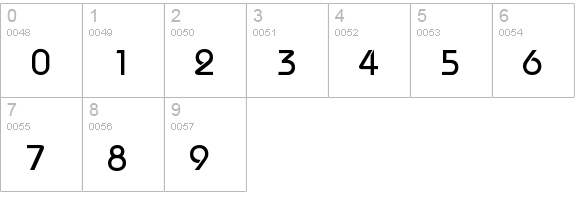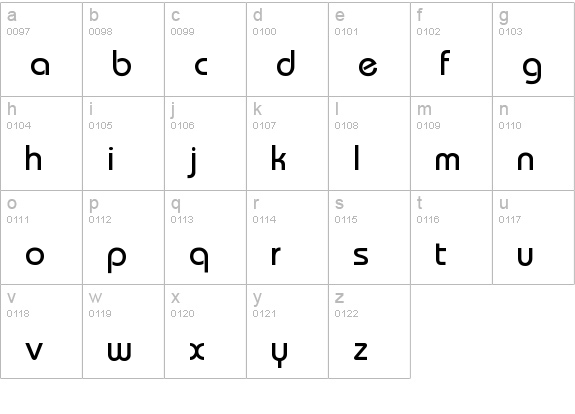
QTDoghaus Regular Font Details
QTDoghaus Regular is the standard, neutral variant in the QTDoghaus typeface family \xE2\x80\x94 well suited to general body text, paragraphs, and standard typographic work.
Introducing QTDoghaus Regular, a font that exudes a playful yet sophisticated charm. With its clean lines and rounded edges, this typeface is perfect for adding a touch of whimsy to any project. Whether you're designing a logo, creating a poster, or crafting a greeting card, QTDoghaus Regular is sure to make a bold statement. What makes QTDoghaus Regular even more enticing is that it is free! That's right, this fantastic font is freely available to download at FontsMarket.com. Say goodbye to costly font purchases and hello to creative freedom. With QTDoghaus Regular, you can elevate your designs without breaking the bank. This versatile font offers a wide range of uppercase and lowercase characters, ensuring that you have all the tools you need to bring your vision to life. Its legibility and readability make it suitable for both print and digital projects, allowing you to effortlessly captivate your audience. QTDoghaus Regular's versatility extends to various design styles, from modern and minimalistic to fun and quirky. Its adaptability makes it a go-to choice for designers and creatives alike, as it effortlessly complements a wide range of aesthetics. Unleash your creativity with QTDoghaus Regular. Download it for free at FontsMarket.com and embark on a design journey that is both stylish and cost-effective. With this font in your toolkit, you'll be able to create eye-catching designs that leave a lasting impression. So go ahead, download QTDoghaus Regular today and let your imagination soar.